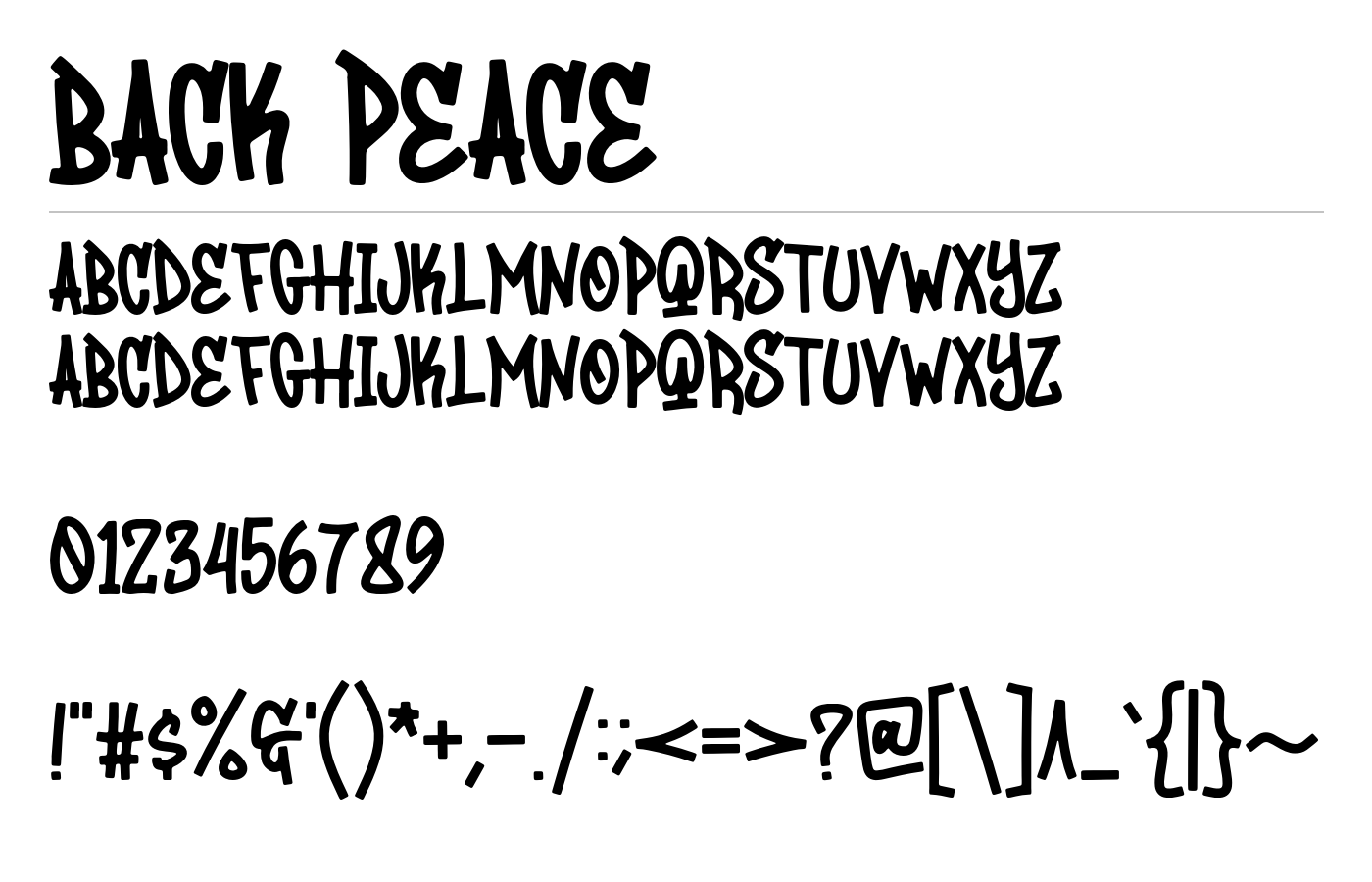
Back Peace is a bold, playful handwritten sans serif font featuring quirky, uneven letterforms with a casual and energetic vibe. Its irregular strokes and slightly condensed shapes create a dynamic feel that works well for fun, informal designs such as posters, youth branding, and creative projects seeking a friendly and unique personality. This font stands out with its distinctive style, making it ideal for expressive headlines and eye-catching display use.
Back Peace Font
About Back Peace Font
| Font family | Back Peace Font |
| Designer | Anggi Hermawan |